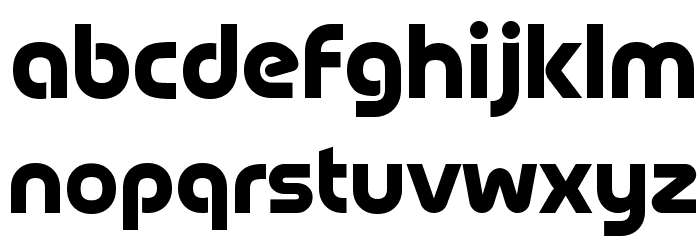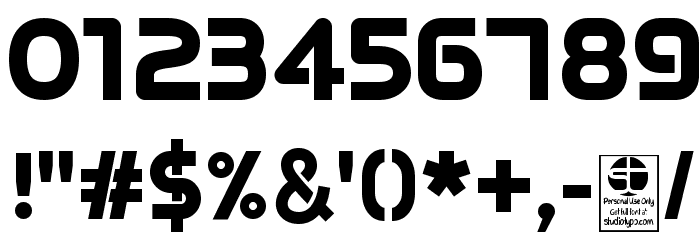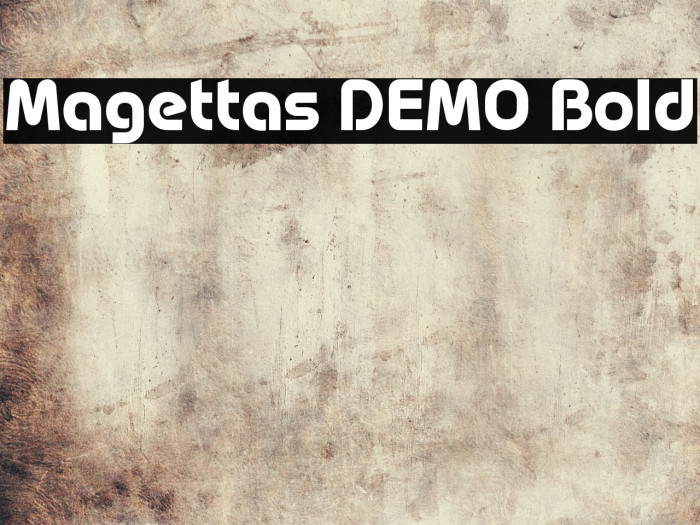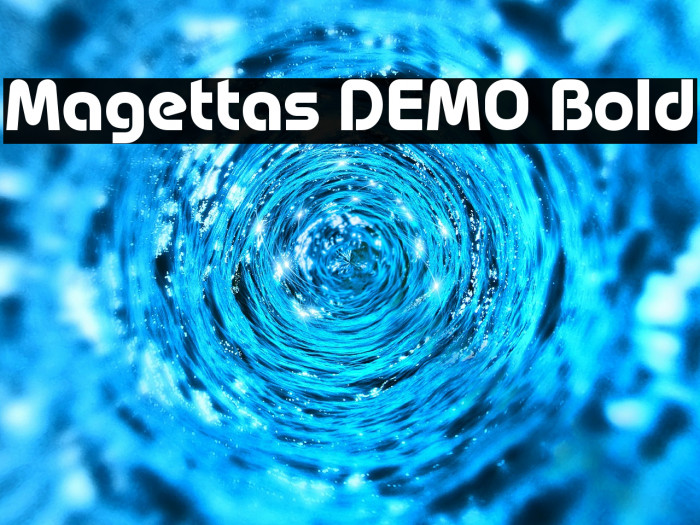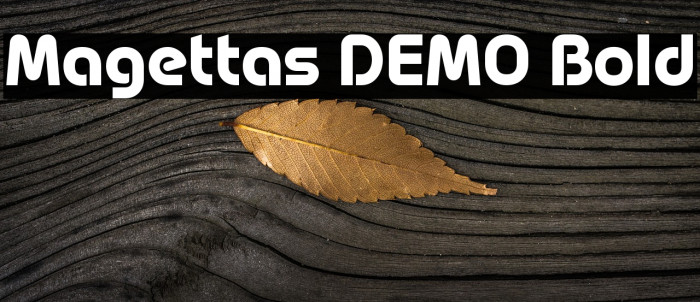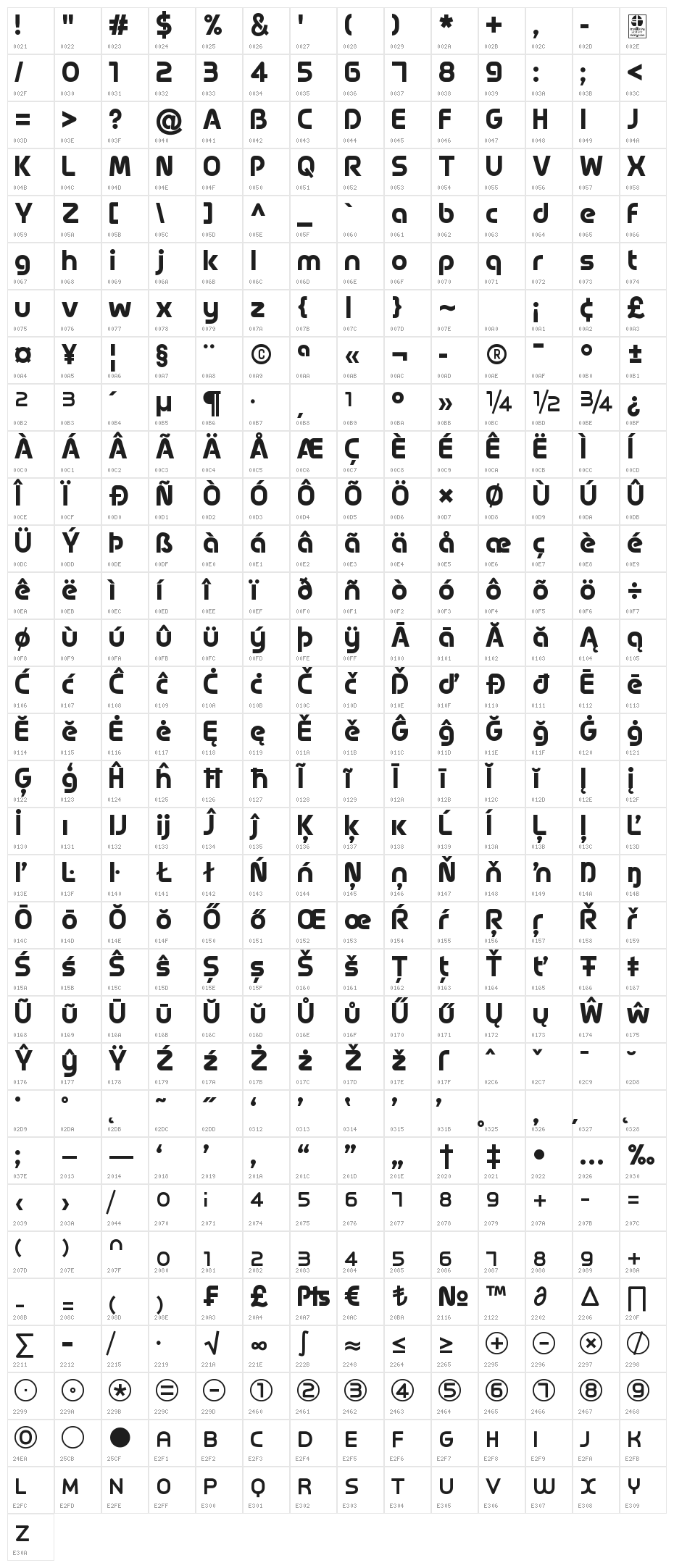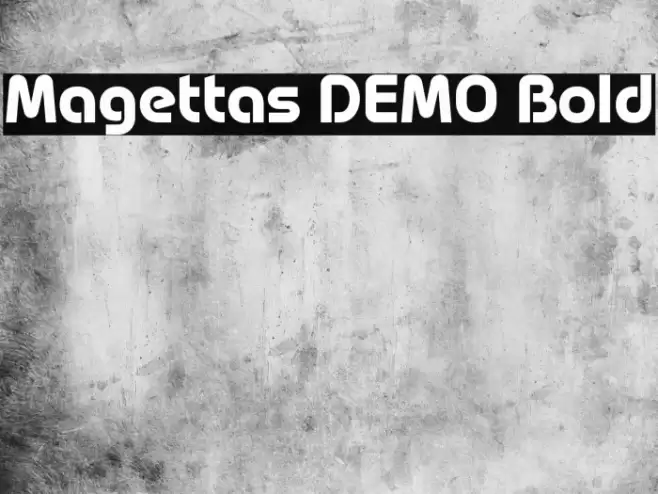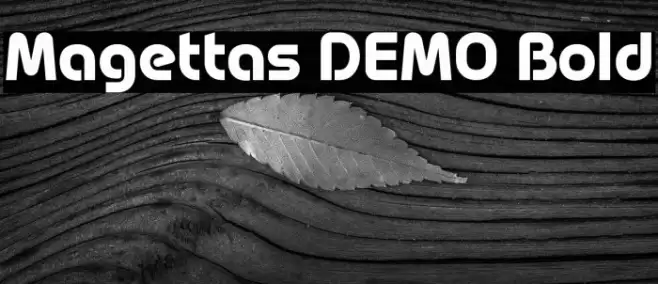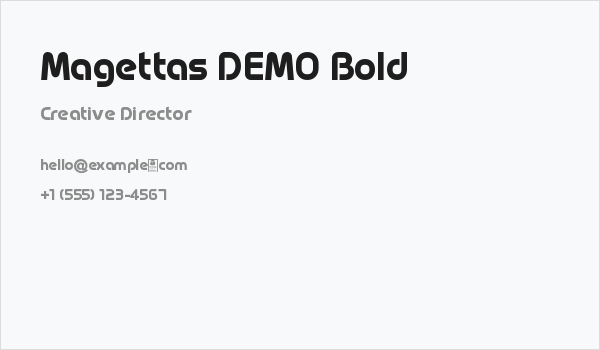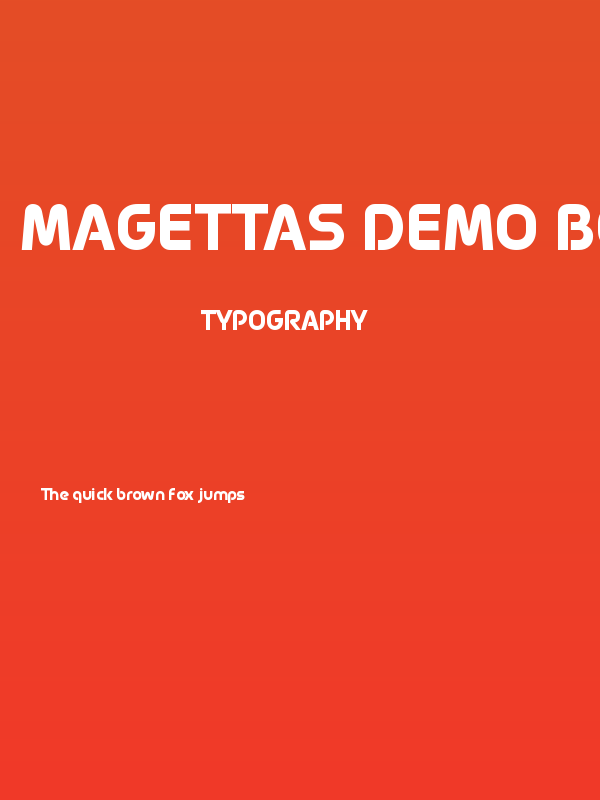
Magettas DEMO Bold Font
This font exhibits a bold and modern aesthetic with a geometric sans-serif style. The characters are uniformly thick, providing a strong and assertive presence. The rounded edges soften the overall look, making it approachable while maintaining a professional tone. The uppercase and lowercase letters are well-proportioned, ensuring readability. The numerals are clear and consistent with the letterforms, and the special characters are distinct and easily recognizable. This font is versatile, suitable for various design applications where a contemporary and robust typeface is desired.
A bold, geometric sans-serif font with rounded edges and a modern style.
- Proposed Projects: Ideal for branding, advertising, headlines, and digital media where a strong, modern presence is needed.
- Use Case: Headlines, Logos, Branding